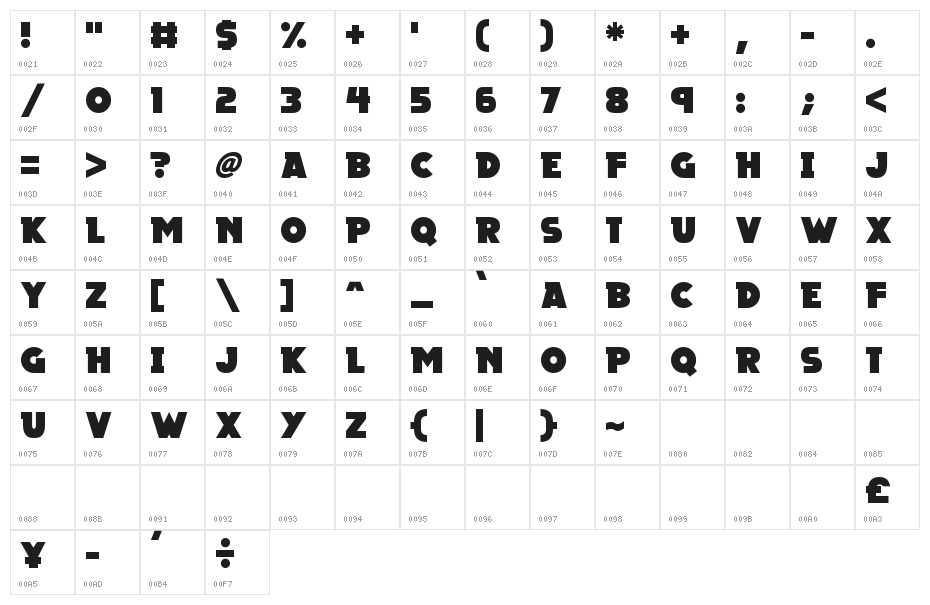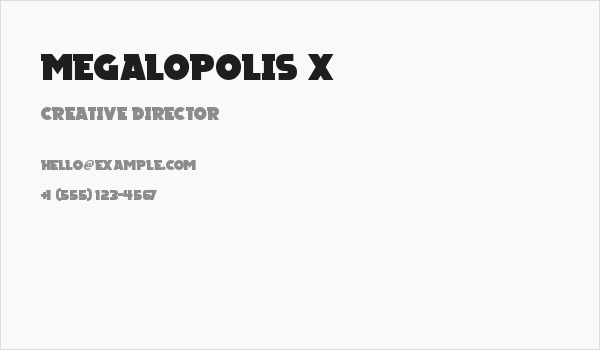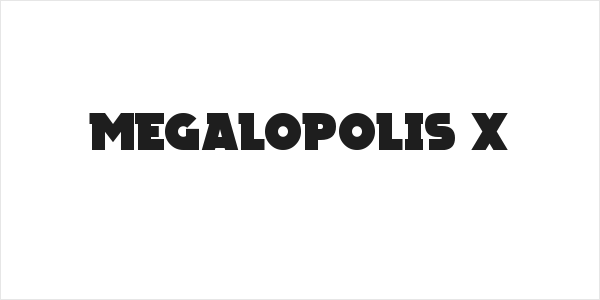
Megalopolis X Font
Megalopolis X Description
This font features a bold and striking design with thick, block-like characters that convey a sense of strength and impact. The uppercase letters are particularly prominent, with a geometric style that emphasizes straight lines and sharp angles. The lowercase letters maintain a consistent weight and structure, ensuring readability while retaining the bold aesthetic. Numbers and special characters follow the same design principles, making them stand out with their robust appearance. The overall look is modern and assertive, ideal for making a strong visual statement.
| Proposed Projects | Ideal for posters, headlines, branding, and any project requiring a strong visual impact. |